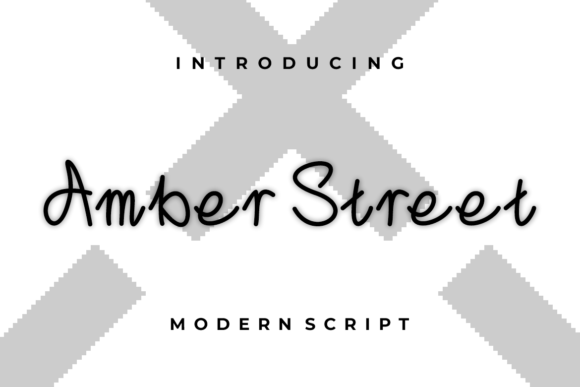
Get ready to add a touch of whimsy and personality to your projects with our Amber Street font! This delightful script font is perfect for unleashing your creativity and making a statement. Whether you're writing a heartfelt letter, designing an eye-catching poster, or creating a charming invitation, Amber Street has got you covered.
Its playful and bouncy characters will bring a smile to your face and captivate your audience. Imagine the impact of a complaint letter written in Amber Street's unique style—it's sure to grab attention and leave a lasting impression. But don't just take our word for it. Join the countless satisfied users who have discovered the magic of Amber Street.
Crafted by the talented maikofarazhatta, this font is more than just a collection of letters. It's a gateway to a world of endless creative possibilities. Its versatility knows no bounds, making it a must-have for any font enthusiast or design professional.
So why settle for ordinary fonts when you can have extraordinary? Embrace the charm of Amber Street today and elevate your projects to new heights. Your creations will thank you for it!